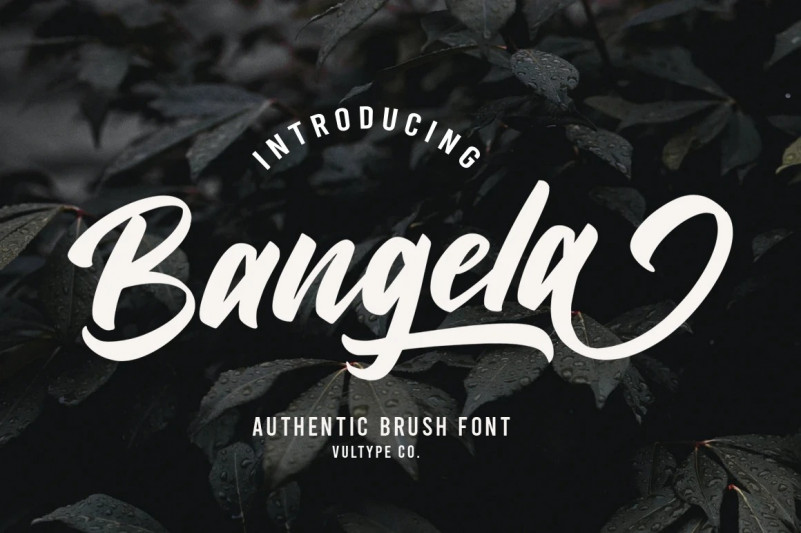
Bangela Font
Bangela Script Font
This typeface designed by Vultype Co. is a beautifully clear handwritten font Inspired by Modern Vintage & Retro style and combination with old american traditional style. Allowing you to create hand lettering is an instant and a super handy set of bonus Swash.
Ideal for logos, handwritten quotes, product packaging, header, poster, merchandise, social media & greeting cards.